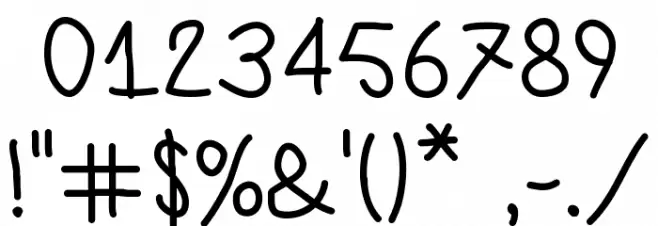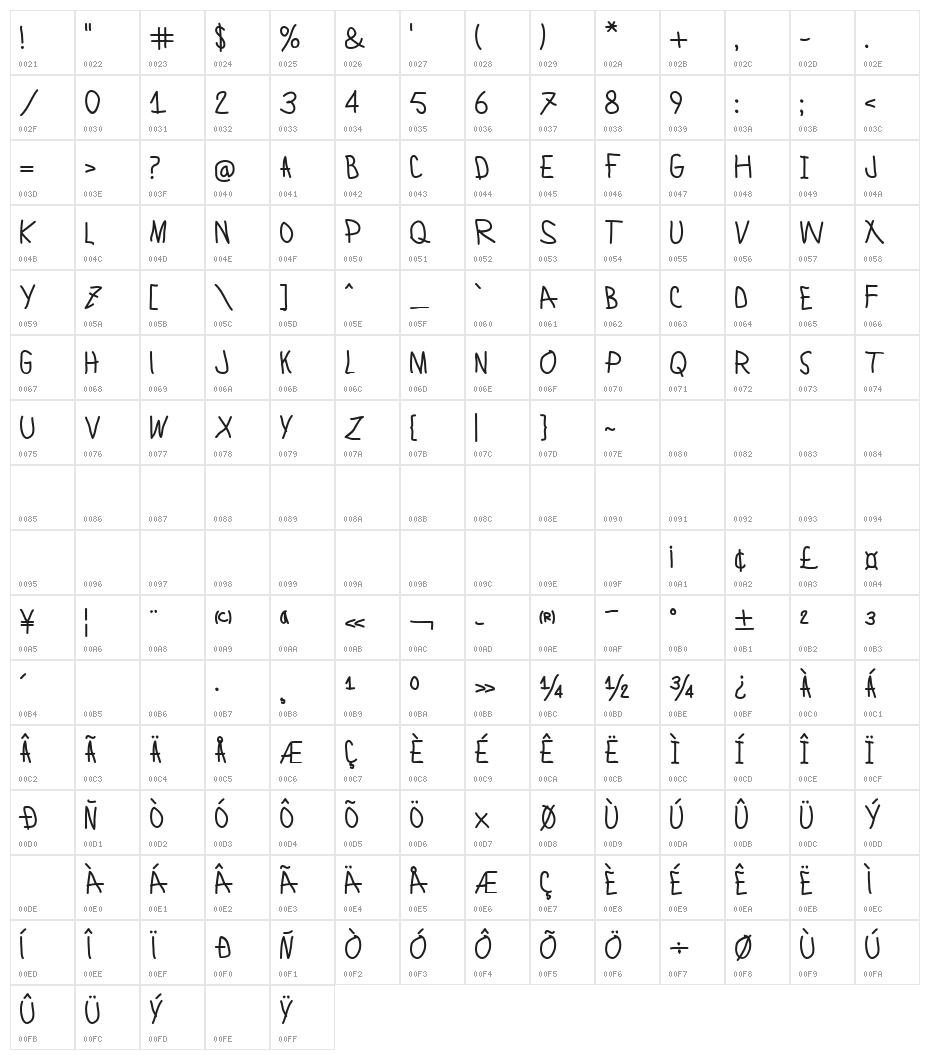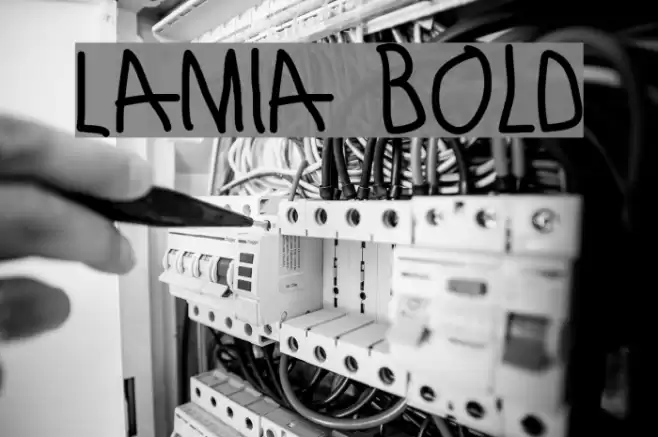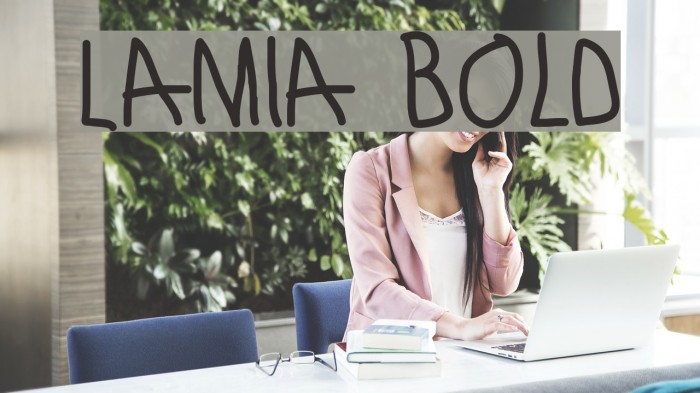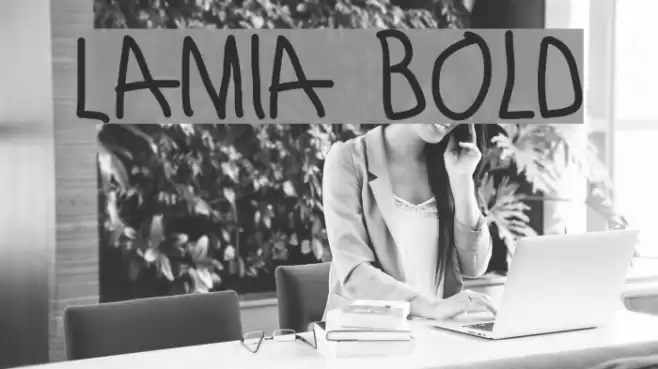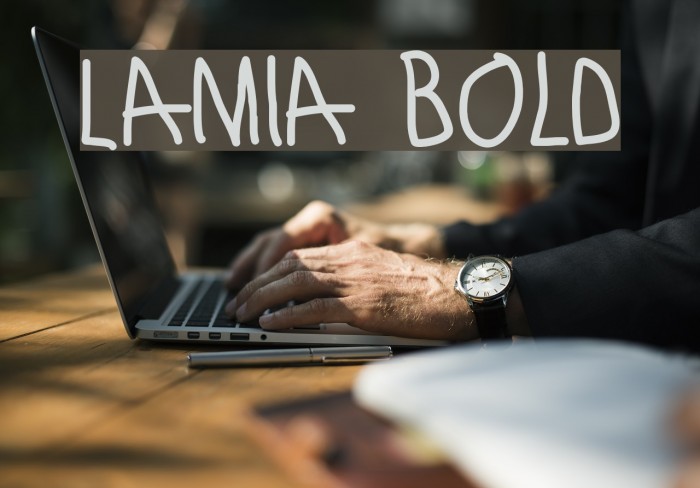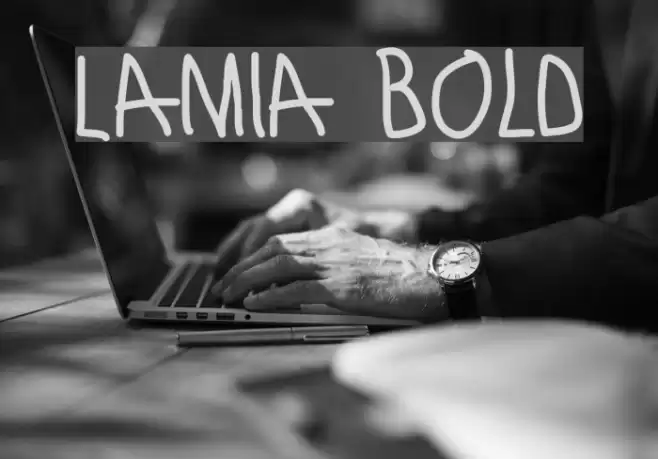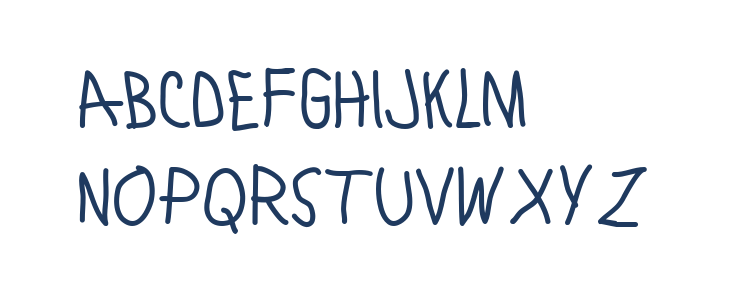
Lamia Bold Font
Lamia Bold Description
This font features a playful and informal handwritten style, characterized by its irregular strokes and slightly uneven baseline. The letters have a casual, friendly appearance, with rounded edges and a natural flow that mimics handwriting. The uppercase and lowercase letters maintain a consistent style, with a slight slant that adds to the dynamic feel. The numerals and special characters are crafted to match the overall aesthetic, ensuring a cohesive look across all text elements. This font's unique charm makes it suitable for projects that require a personal touch.
| Proposed Projects | Ideal for greeting cards, invitations, personal blogs, and creative branding projects. |